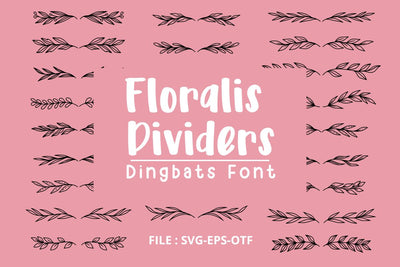
Floralis Dividers - Font Dingbat
Floralis Dividers is a cool and fun dingbats font that adds a creative touch to your designs. Floralis Dividers let you unleash your creativity and bring your designs to life with lively and unique doodles.